Discussion Item No. 1 is an update to Mr Rightside. I mentioned a lil while back that I wanted to try a version that would work at a smaller text size and here it is! I did a small set of letters because I’m not sure if I love or hate it. In the context of a full family it makes sense but on its own it feels a little too similar to those cursive worksheets that us ~*older*~ generations had to do in second grade.
Creating the middle style in between the original Mr Rightside and this new smaller version, would likely help me decide where it falls on the love-hate spectrum. If you have thoughts or opinions, I’d love to hear them!
Item No. 2 is this logo I made for my forthcoming knitting newsletter, Libbie’s Lab. I want to create a little space for my knitting experiments to live and that, of course, needed a logo. It’s smooshy and fun — just like knitting. There’s no real reason for this type style other than I like it and it’s sort of like if Socko had a little lowercase italic baby. You can watch a hyper-speed process video here!
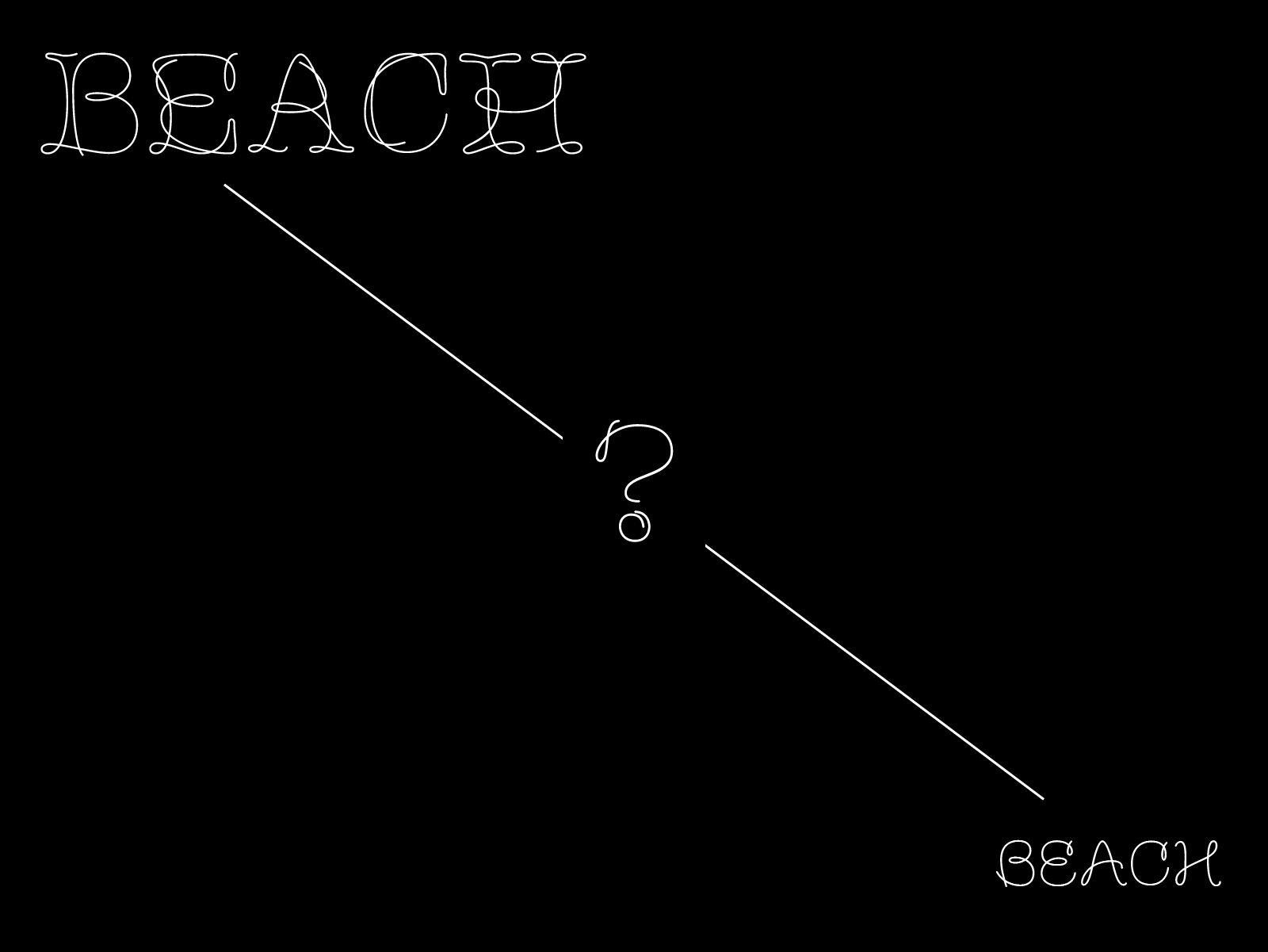
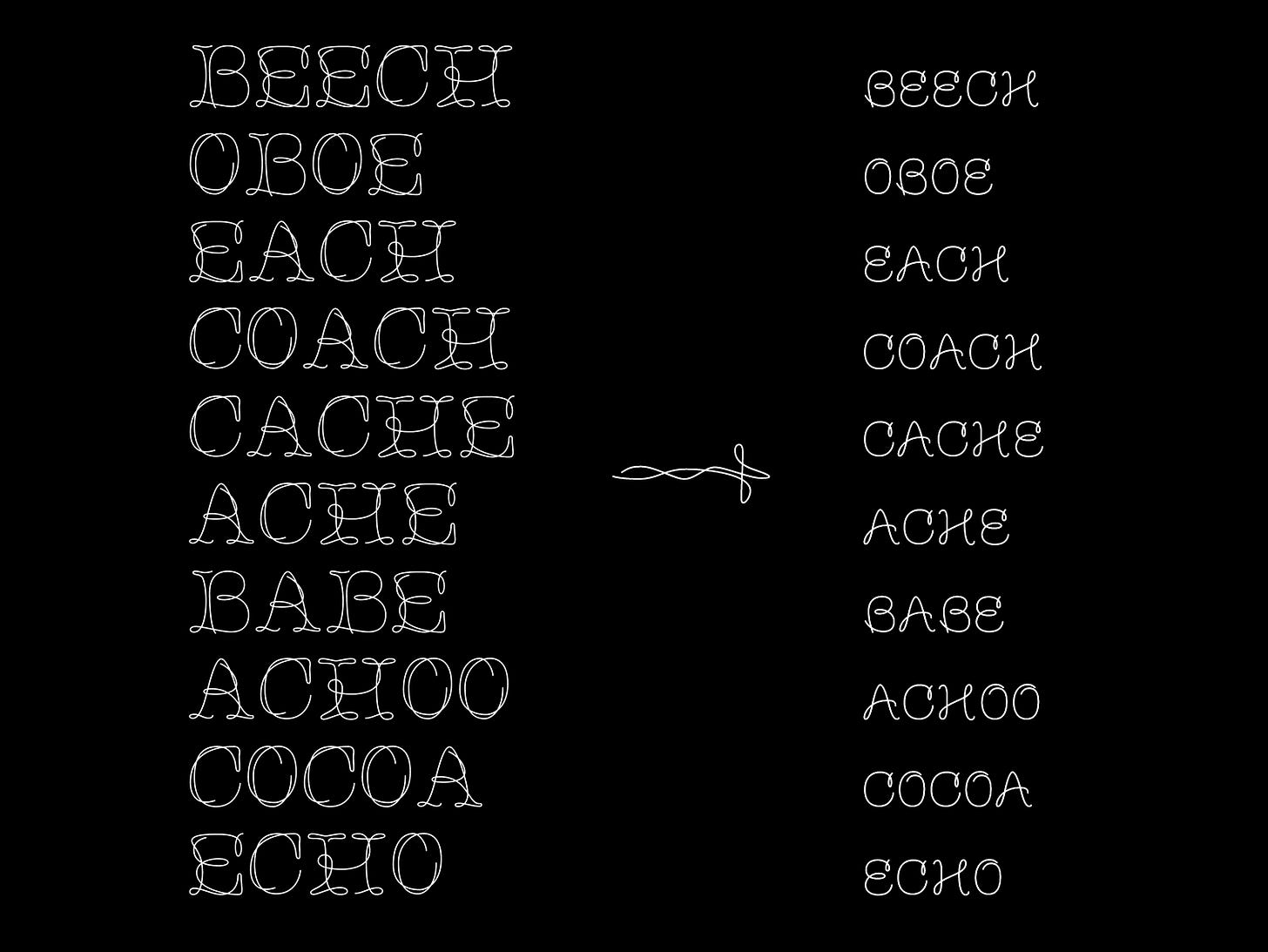
Love Mr. Rightside in display. The text size is cute, but not sure about readability for long texts :) But really love big Mr. Rightside. Is it available for purchase?